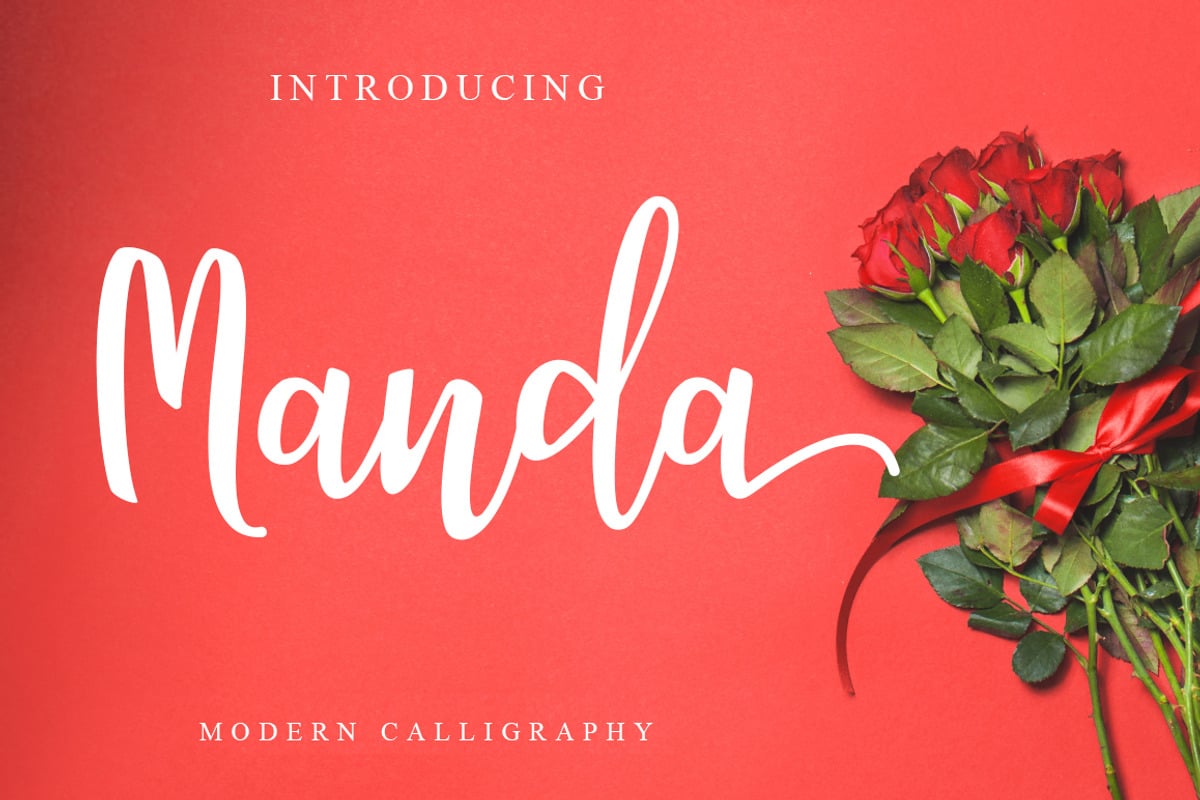
Manda Script Duo Font
Transform your designs with Manda Script - a stunning handmade calligraphy font that brings elegance to every project. This modern script typeface combines beautiful handcrafted letterforms with contemporary style, making it perfect for creating sophisticated designs that stand out. With four distinct variations, Manda Script offers versatility while maintaining its graceful character. Ideal applications include logos, branding projects, wedding invitations, greeting cards, signature designs, po...